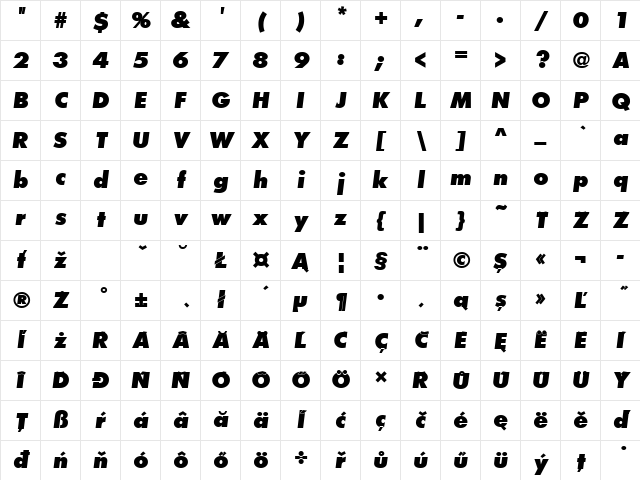
Complete FuturaPEEExtBol Italic glyph index. Displaying only characters natively supported by FuturaPEEExtBol Italic font.
FuturaPEEExtBol has a distinctly futuristic character, with geometric precision and clean angles that feel at home in technology, gaming, and sci-fi contexts. The slanted form adds forward momentum and visual energy.